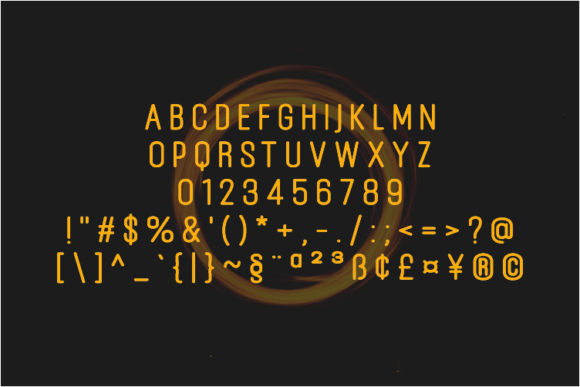
Foshark Font: The Ultimate Sans Serif for Designers and Crafters
In the world of typography, a good font can make all the difference in creating stunning designs that capture the essence of a brand or product. For designers and crafters looking for a versatile and modern sans serif font, Foshark is an excellent choice. This masterfully designed font features extended characters that will elevate your logos, branding, packaging design, and more.
The Features of Foshark Font
Foshark is a great sans serif font that boasts a range of features that make it perfect for various design applications. Some of its key features include:
- Extended Characters: Foshark features a wide range of characters that will ensure your designs look professional and polished.
- Modern Design: The font’s sleek and modern design makes it perfect for logos, branding, and packaging design.
- Versatility: Foshark can be used for a variety of design projects, from digital designs to print materials.
Why Choose Foshark Font?
- Unique and Professional Look: Foshark’s extended characters and modern design ensure that your designs stand out from the crowd and look professional.
- Ease of Use: The font is easy to read and works well in various design applications, making it a versatile choice.
Design Applications for Foshark Font
Foshark font is suitable for a wide range of design applications, including:
- Logo Design: Create stunning logos that capture the essence of your brand with Foshark’s modern and sleek design.
- Branding: Use Foshark to create consistent branding across all your marketing materials, from business cards to website headers.
- Packaging Design: Elevate your packaging design with Foshark’s clean and modern lines, making your products stand out on store shelves.
- Digital Design: Use Foshark in your digital designs, such as social media graphics, email headers, and more.
- Experiment with Different Sizes: Foshark works well in various sizes, from small text to large headings.